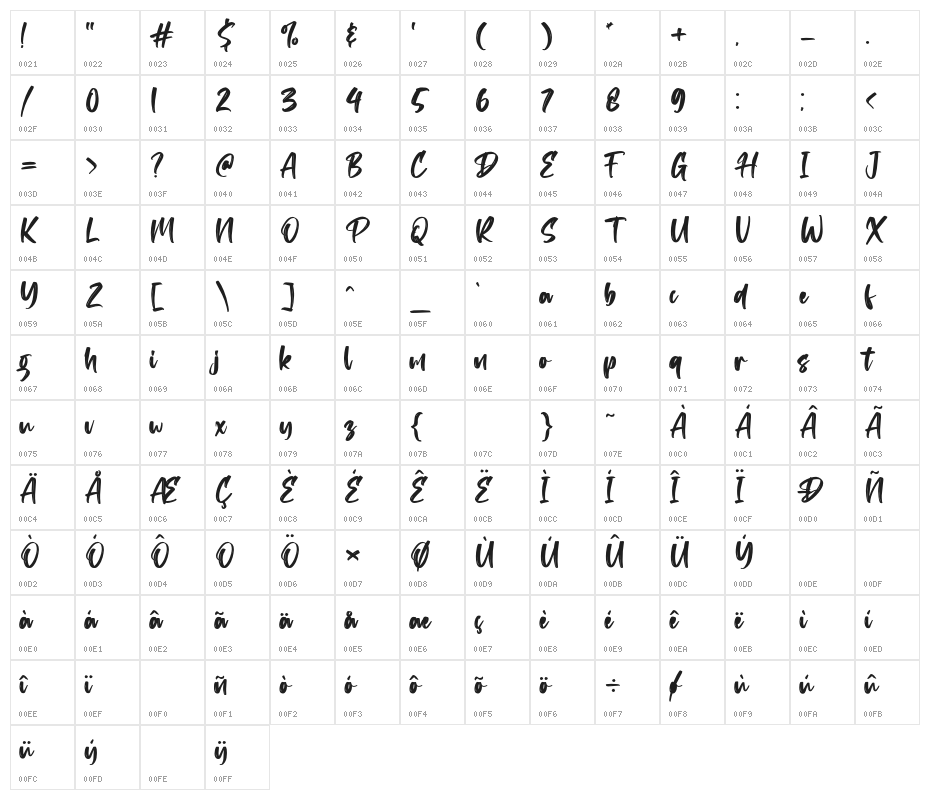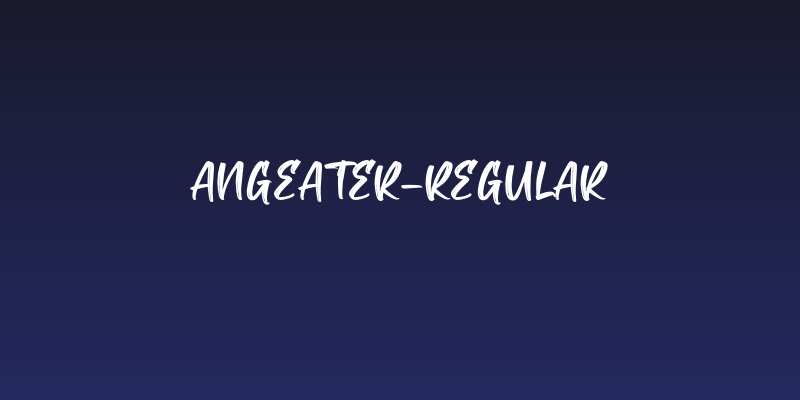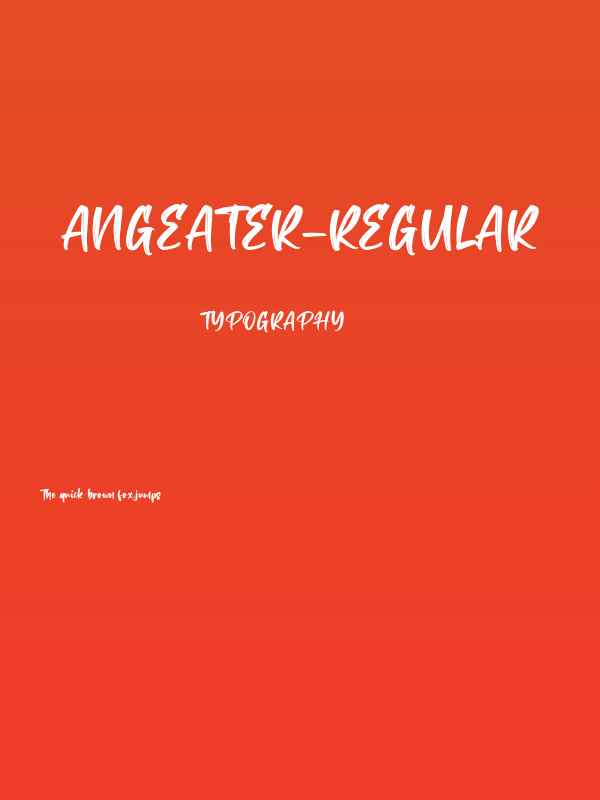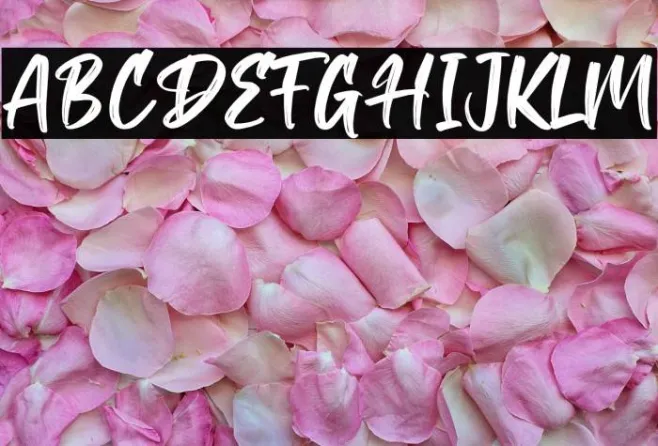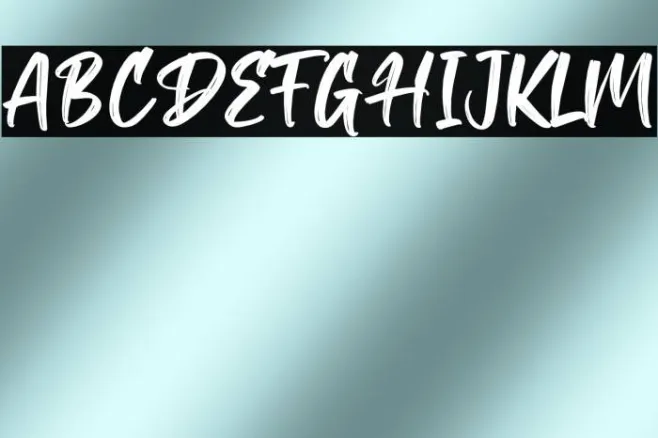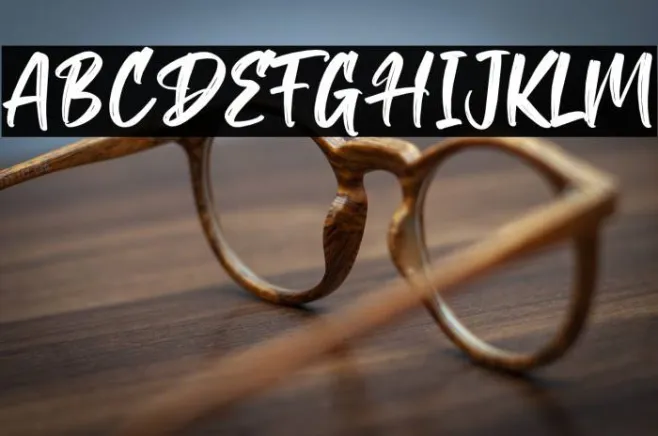
Angeater-Regular Font
Angeater-Regular Description
This font features a bold, expressive style with a handwritten aesthetic. The strokes are thick and dynamic, giving it a lively and energetic appearance. Each letter is crafted with a sense of movement, as if painted with a brush, which adds to its artistic flair. The uppercase and lowercase letters maintain a consistent flow, while the numerals and special characters complement the overall design. The font's organic and fluid nature makes it suitable for creative and informal applications, where a personal touch is desired.
| Proposed Projects | Ideal for branding, posters, invitations, and social media graphics where a personal and artistic touch is needed. |